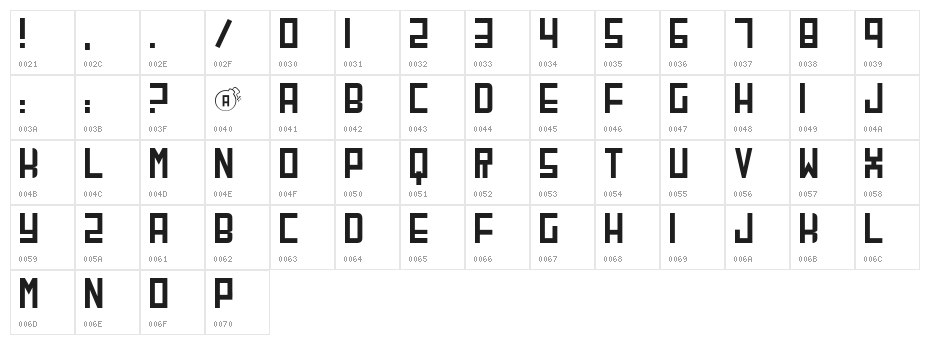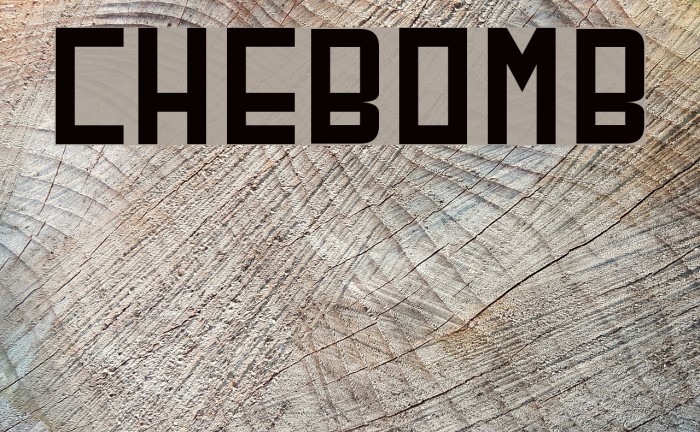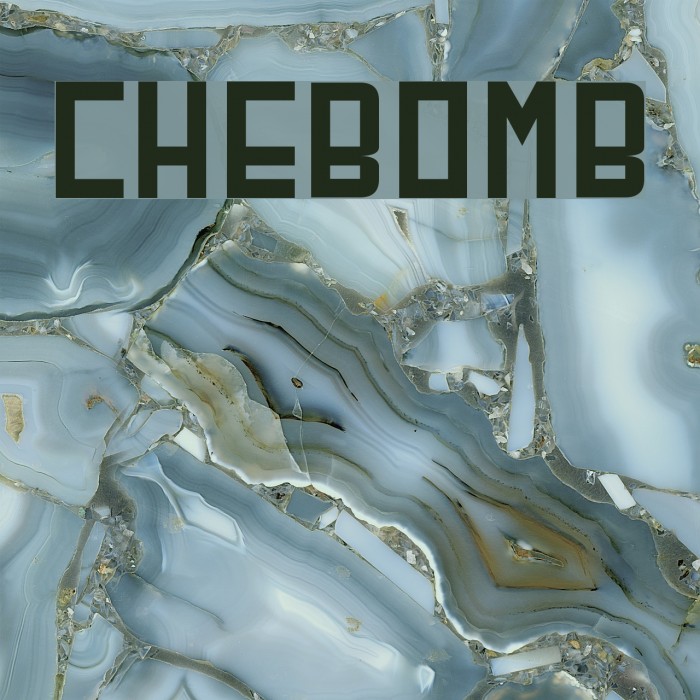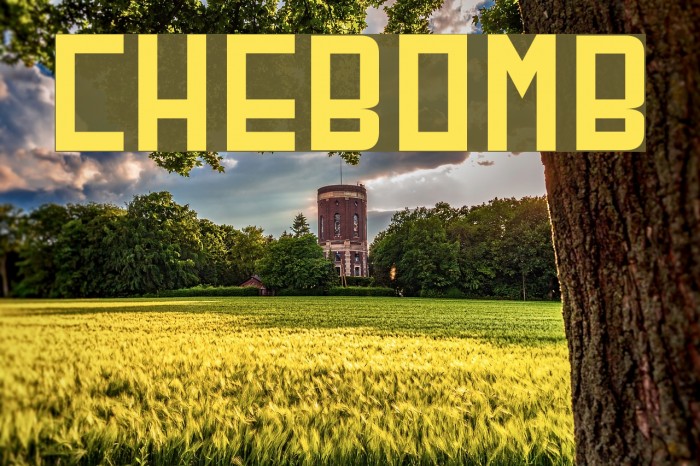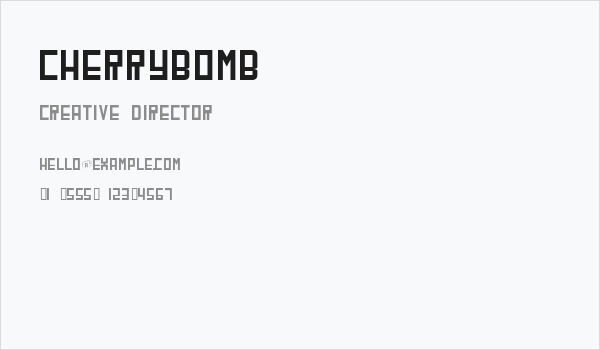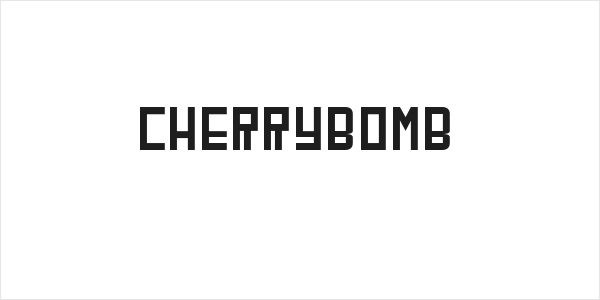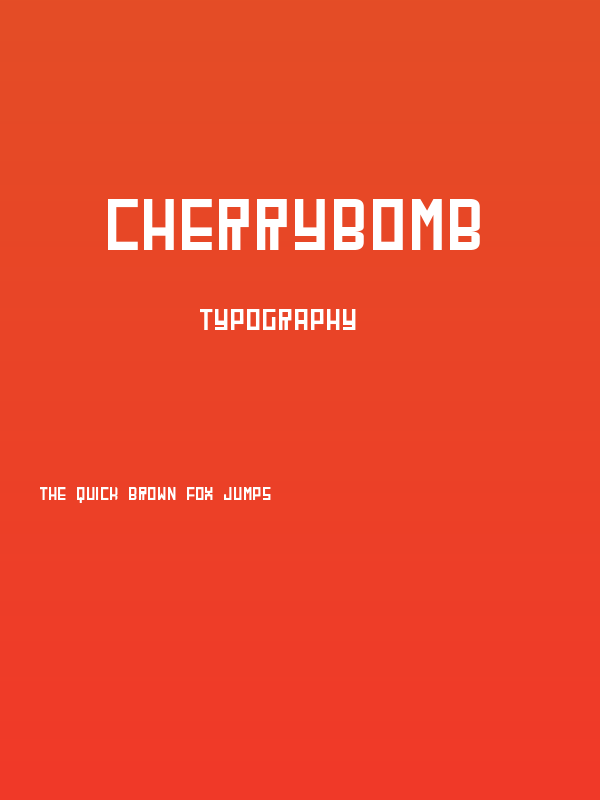
CherryBomb Font
CherryBomb Description
This font features a bold, geometric design with a modern and edgy feel. The characters are constructed with straight lines and sharp angles, giving it a futuristic appearance. The uppercase letters are uniform in height, while the lowercase letters maintain a consistent style with slightly reduced size. Numbers are designed to match the boldness and geometric nature of the alphabet. Special characters are included, maintaining the same stylistic approach. The overall look is clean and structured, making it suitable for attention-grabbing headlines and modern design projects.